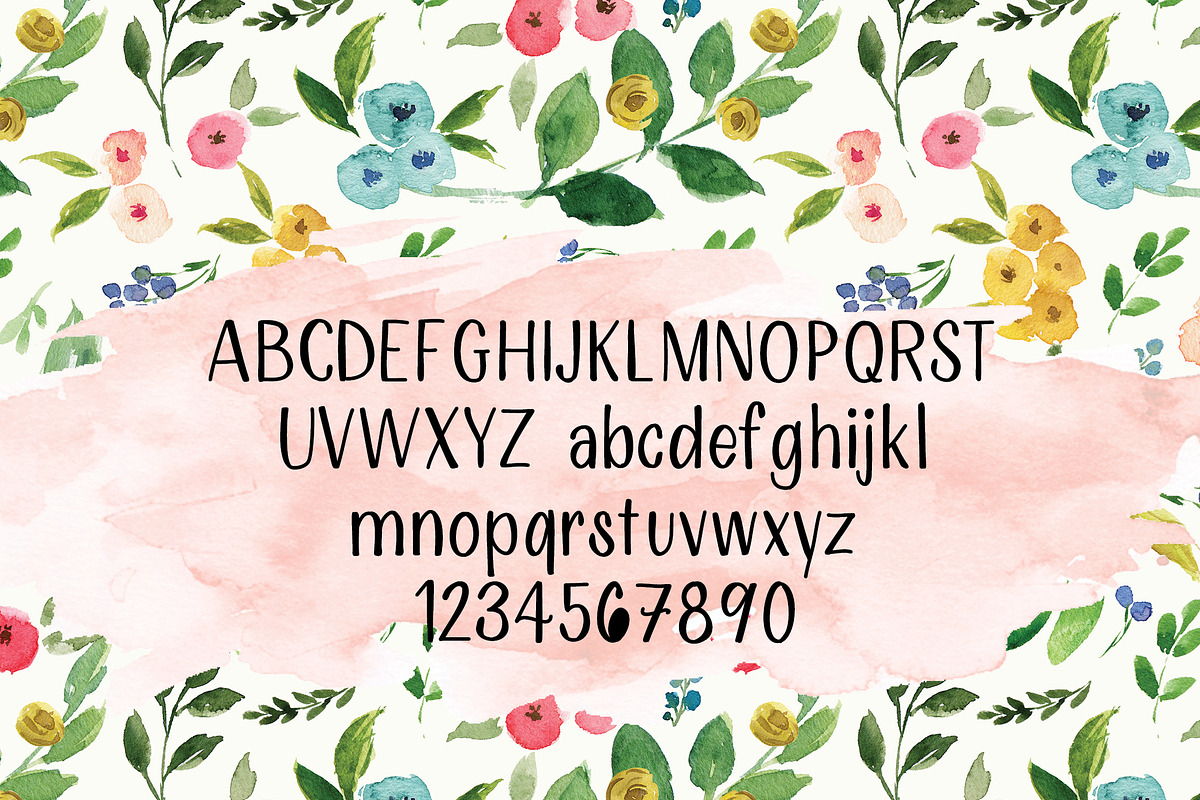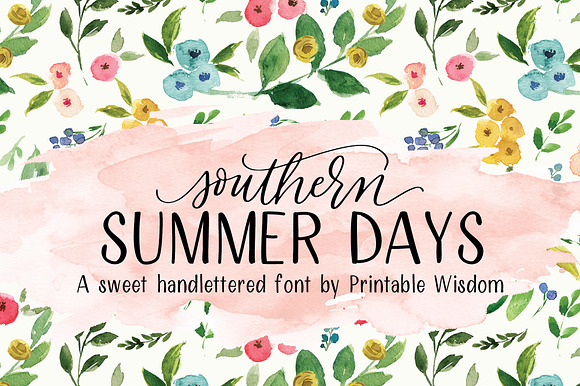
Southern Summer Days Font
"Southern Summer Days" was completely hand written with clean lines, giving your artwork a casual hand crafted look. (the word "southern" in the image above was hand lettered and is not a font)
All punctuation and numbers included (along with a gorgeous ampersand!).